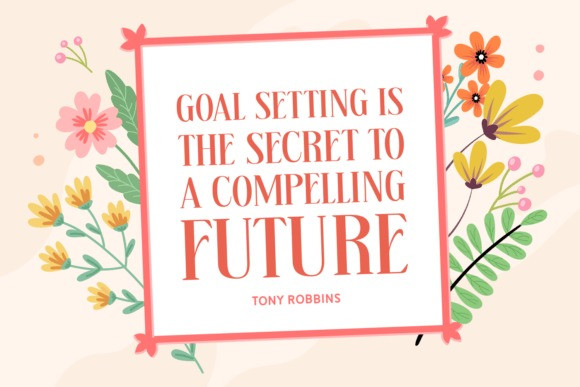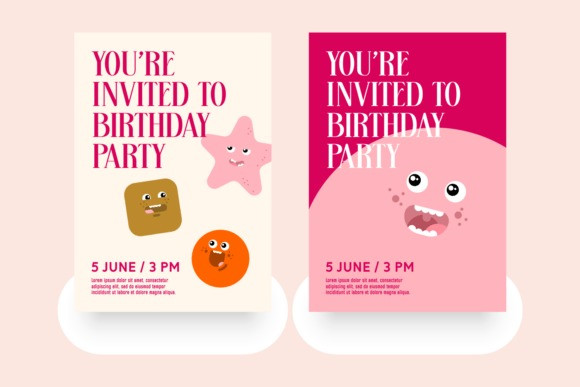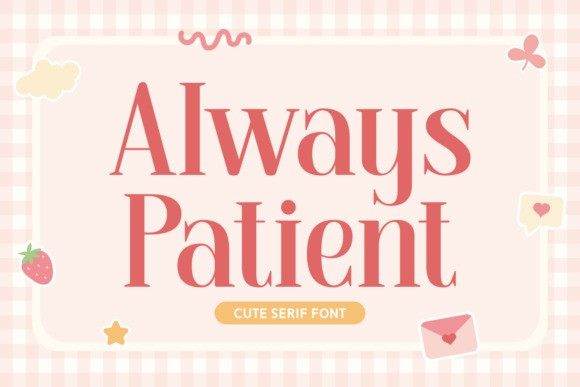
Always Patient Font
Always Patient Font your diverse typography companion. Wrapped within its Serif lineage, it sends waves of elegance and contemporary charm. Its craftsmanship finds an ideal home in realms of photography and accents, bringing an authentic atmosphere to your creative ventures. “Always Patient” dances effortlessly on apparel, breathing life into fashion with its neat and stylish expressions. Envision your book covers, greeting cards, and logos redefined by its vibrant aura. With a clean and smooth personality, it thrives confidently on any platform be it magazines or packaging. Let your quotes become vocal and t-shirt designs playful with “Always Patient.” Trendy yet timeless, bold yet cute — this font truly understands the art of typography.